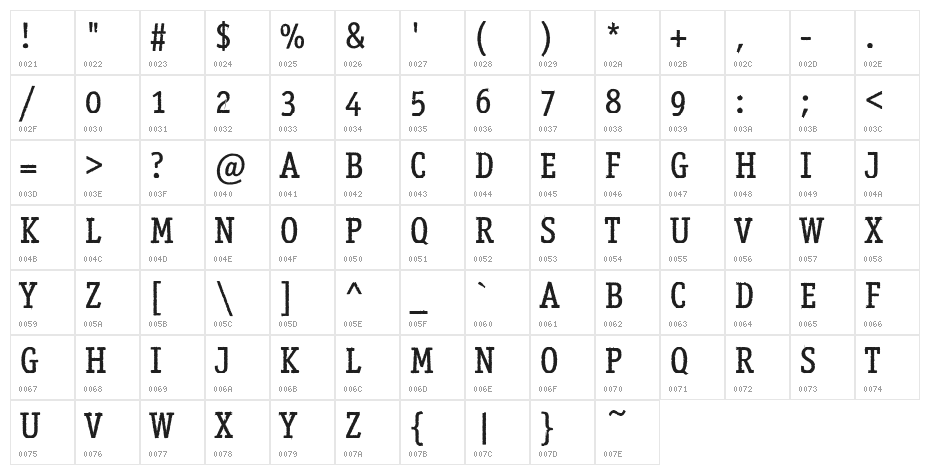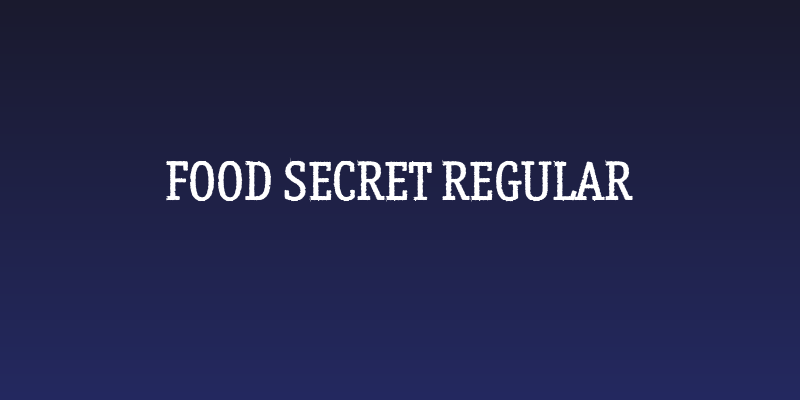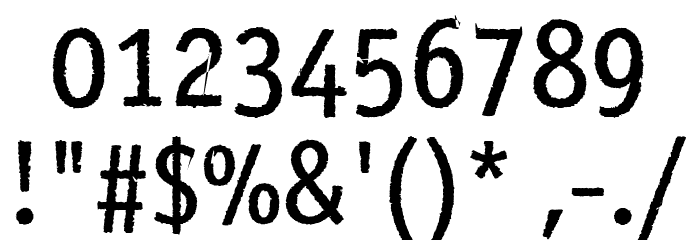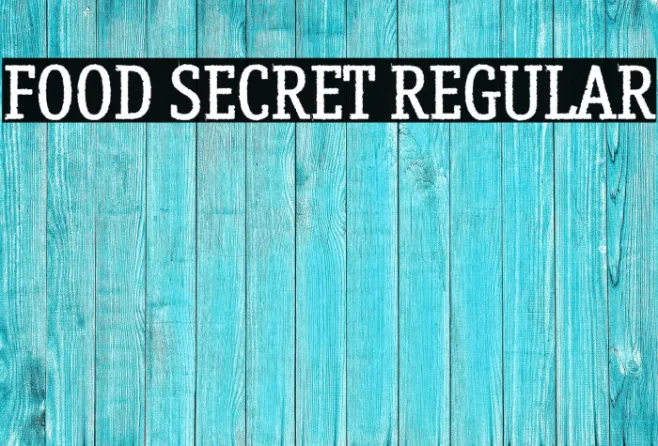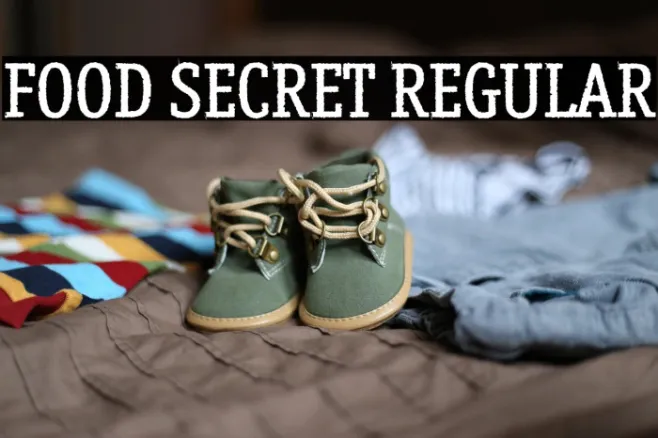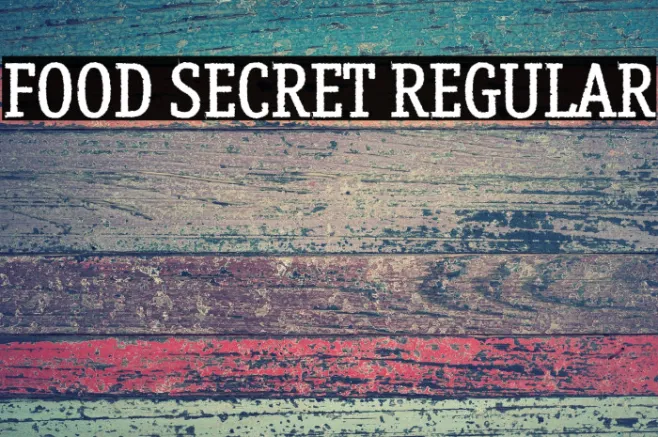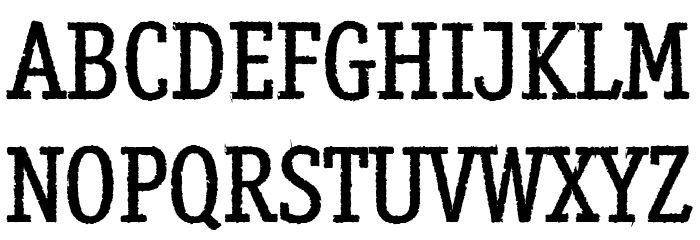
Food Secret regular Font
This font features a bold, slab serif style with a strong presence. The characters are well-defined with thick strokes and slightly rounded edges, giving it a robust and vintage feel. The uppercase letters are prominent and commanding, while the lowercase letters maintain a consistent style that complements the overall design. The numerals are clear and legible, matching the boldness of the alphabet. Special characters are distinct and maintain the same weight and style, ensuring uniformity across all symbols. This font's textured appearance adds a touch of rustic charm, making it suitable for projects that require a classic yet impactful look.
| Proposed Projects | Ideal for branding, packaging, posters, and any design needing a vintage or rustic touch. |